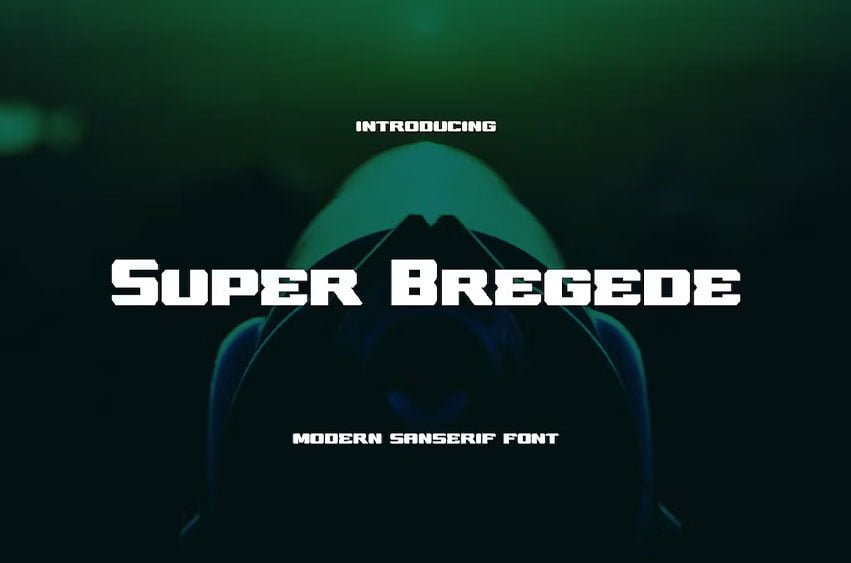
Super Bregede Font Modern Font is a bold and authentic display font. The font is suitable for any branding project like logo. outstanding in a wide range of contexts.